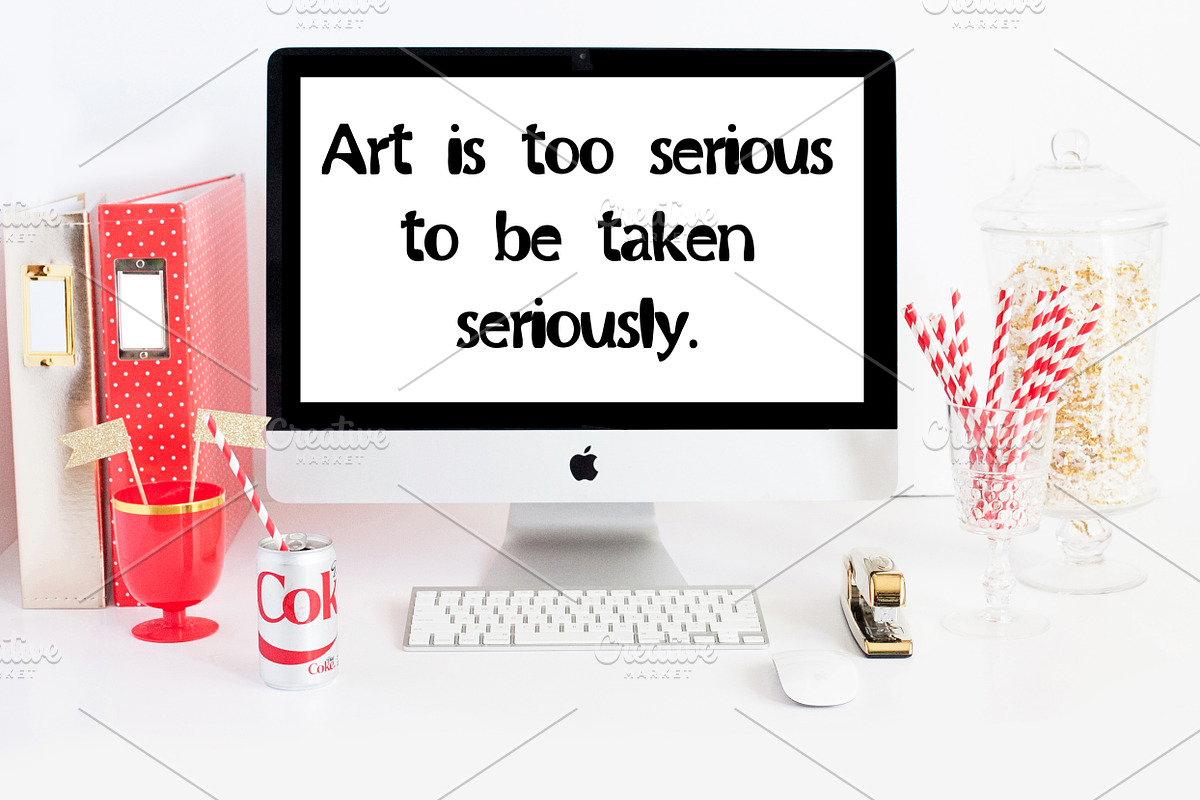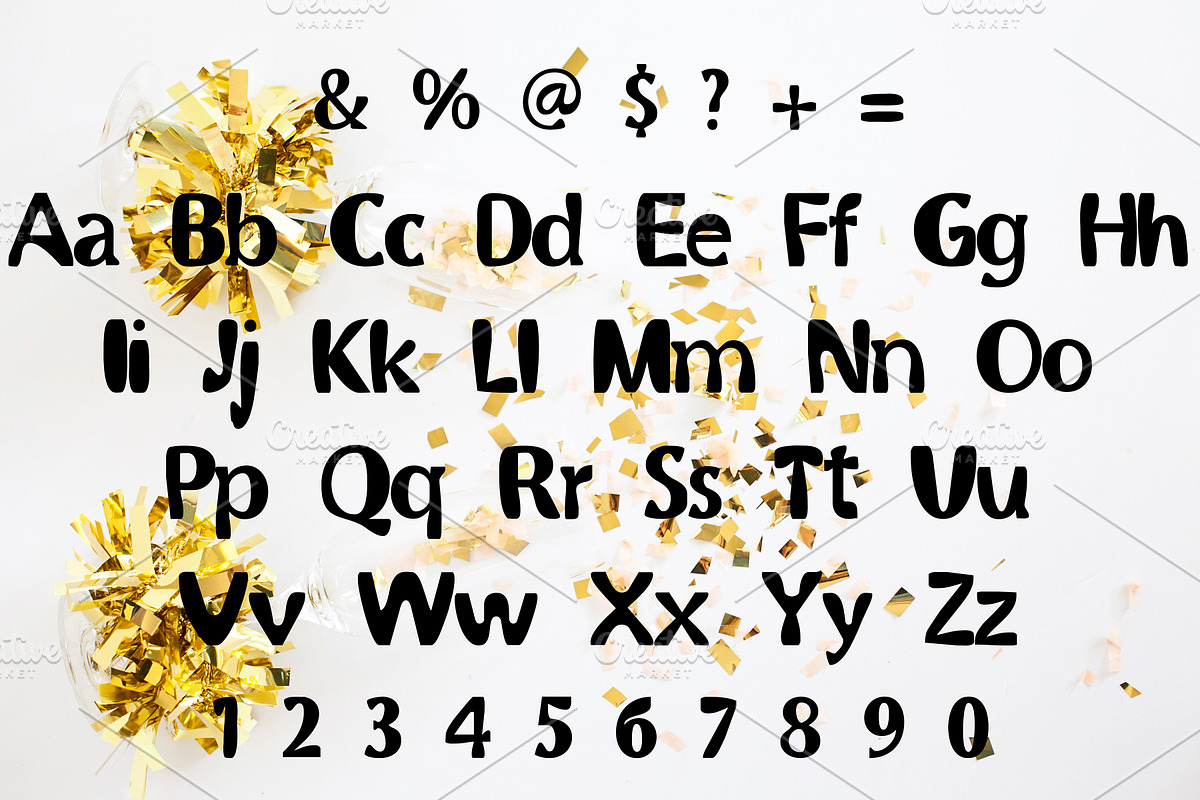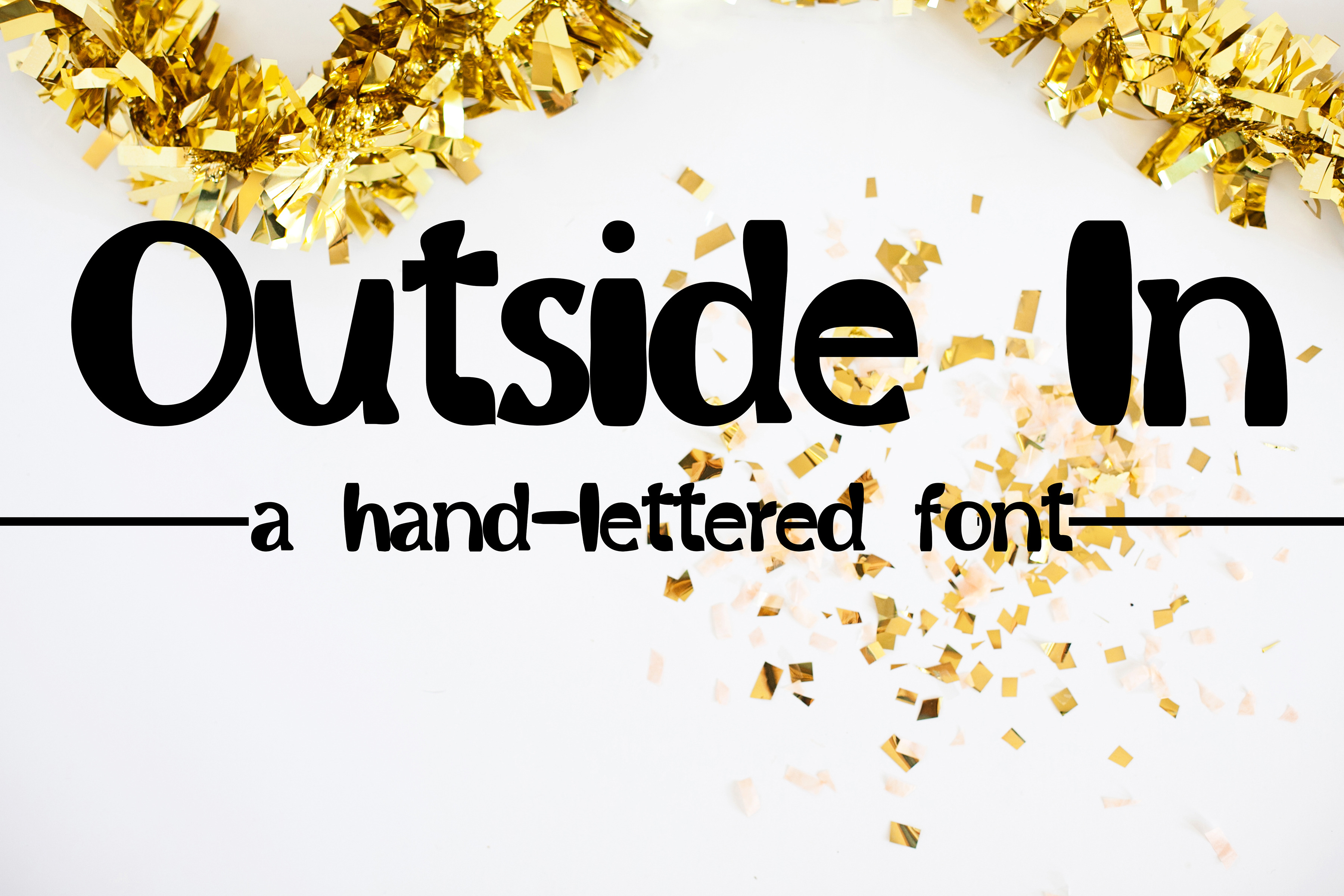
OUTSIDE IN Hand Lettered Font
The Outside In font is a simply bold and fun font. Hand-lettered with a full alphabet, numbers, and symbols, this font is available in a TTF file.